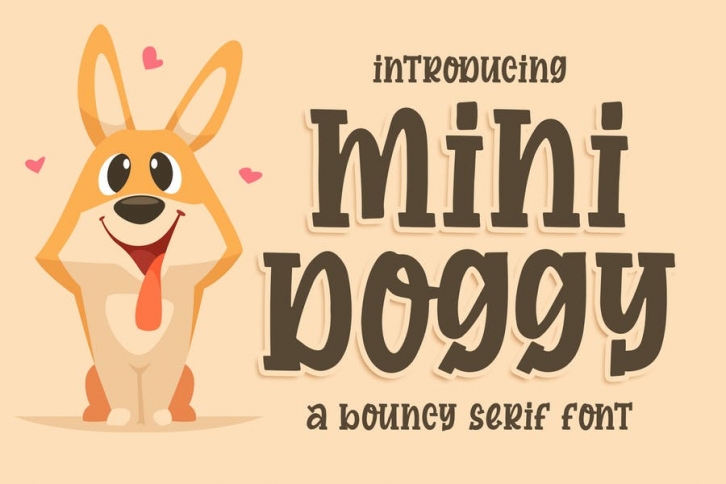
Introducing of our new product the name is Mini Doggy a Bouncy Serif Font. Mini Doggy inspired by bouncy quirky this font is a fun theme very good for, book cover, poster, t-shirt, quote, logotype, craft and etc.